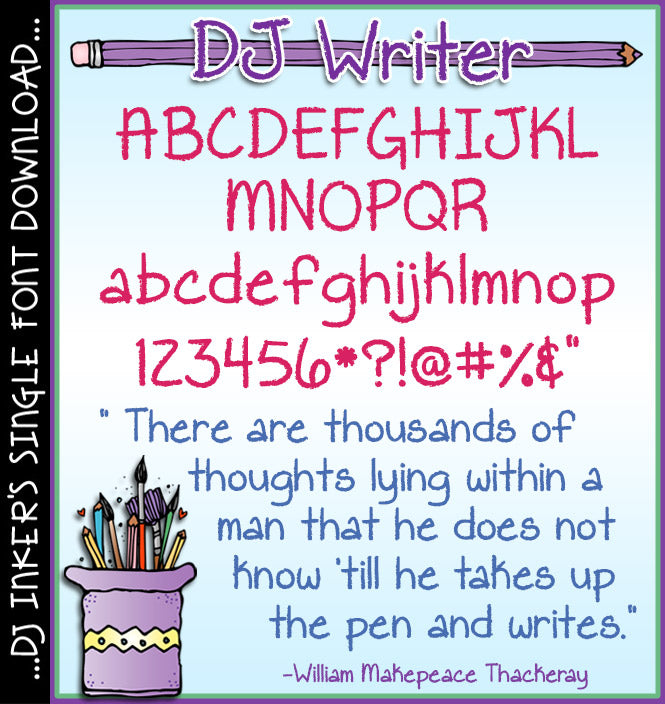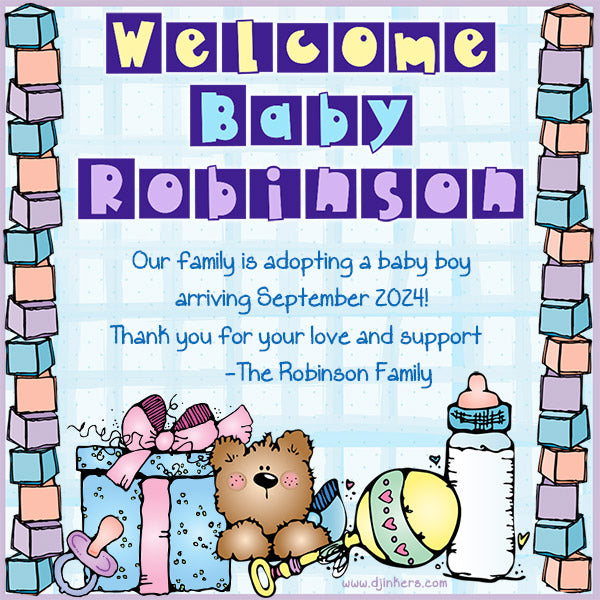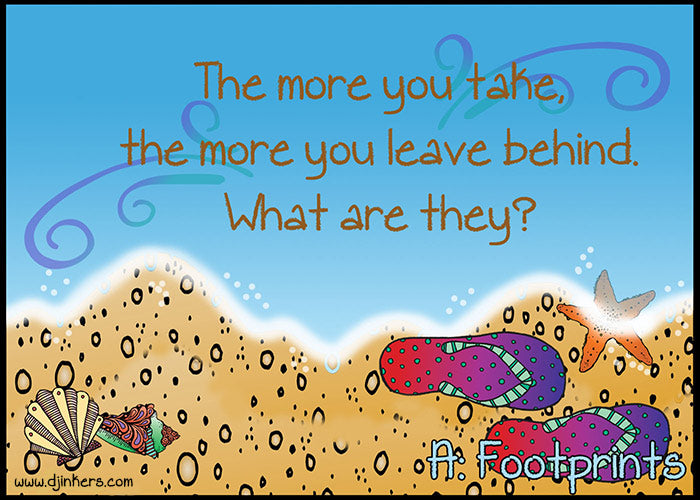
DJ Writer Font Download
Give your projects a neat handwritten look with texture and creative flair! Just use our DJ Writer font. Perfect for classroom activities, notes, worksheets, journals, and more, this font is sure to add personality to your projects and make your work stand out with a smile.